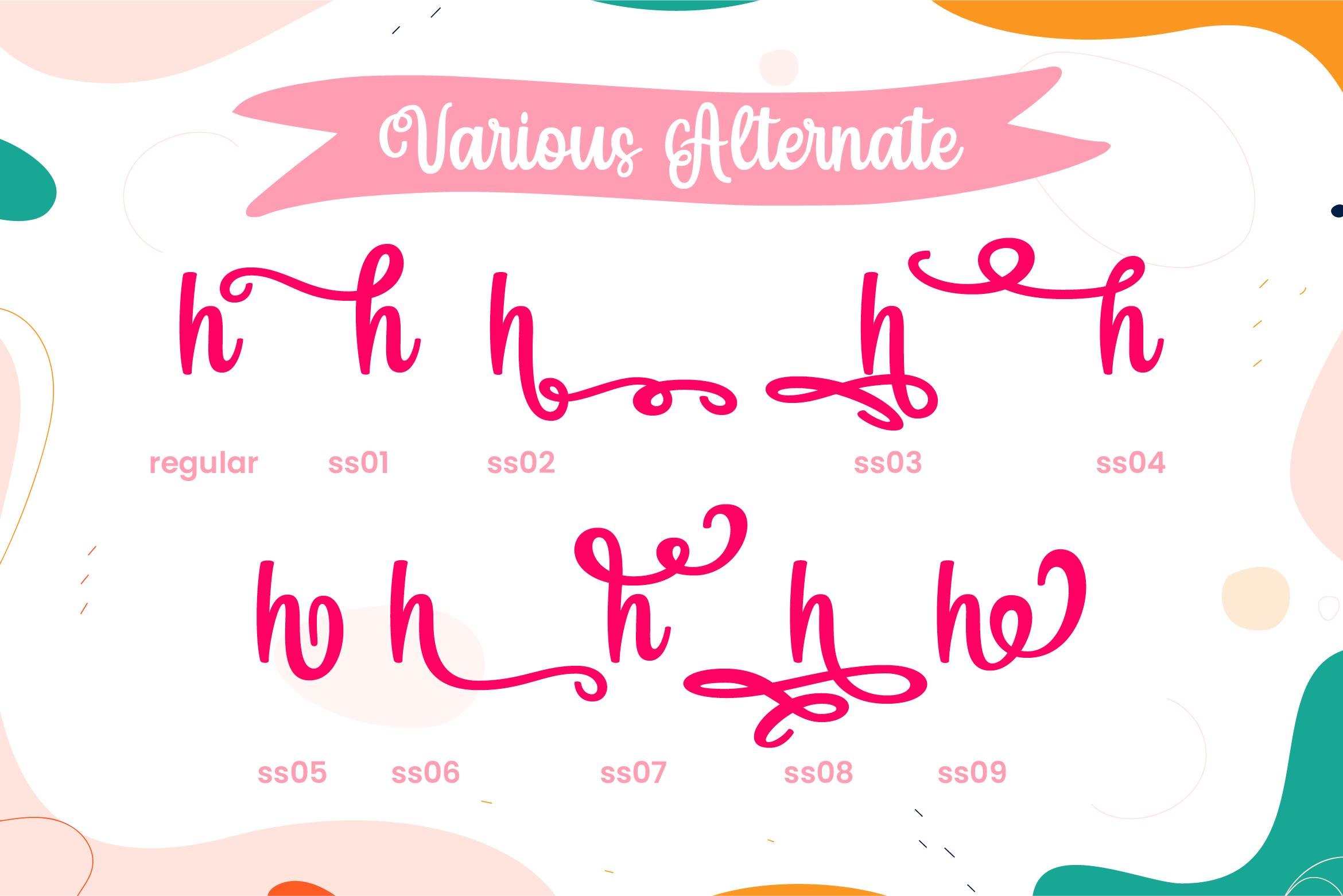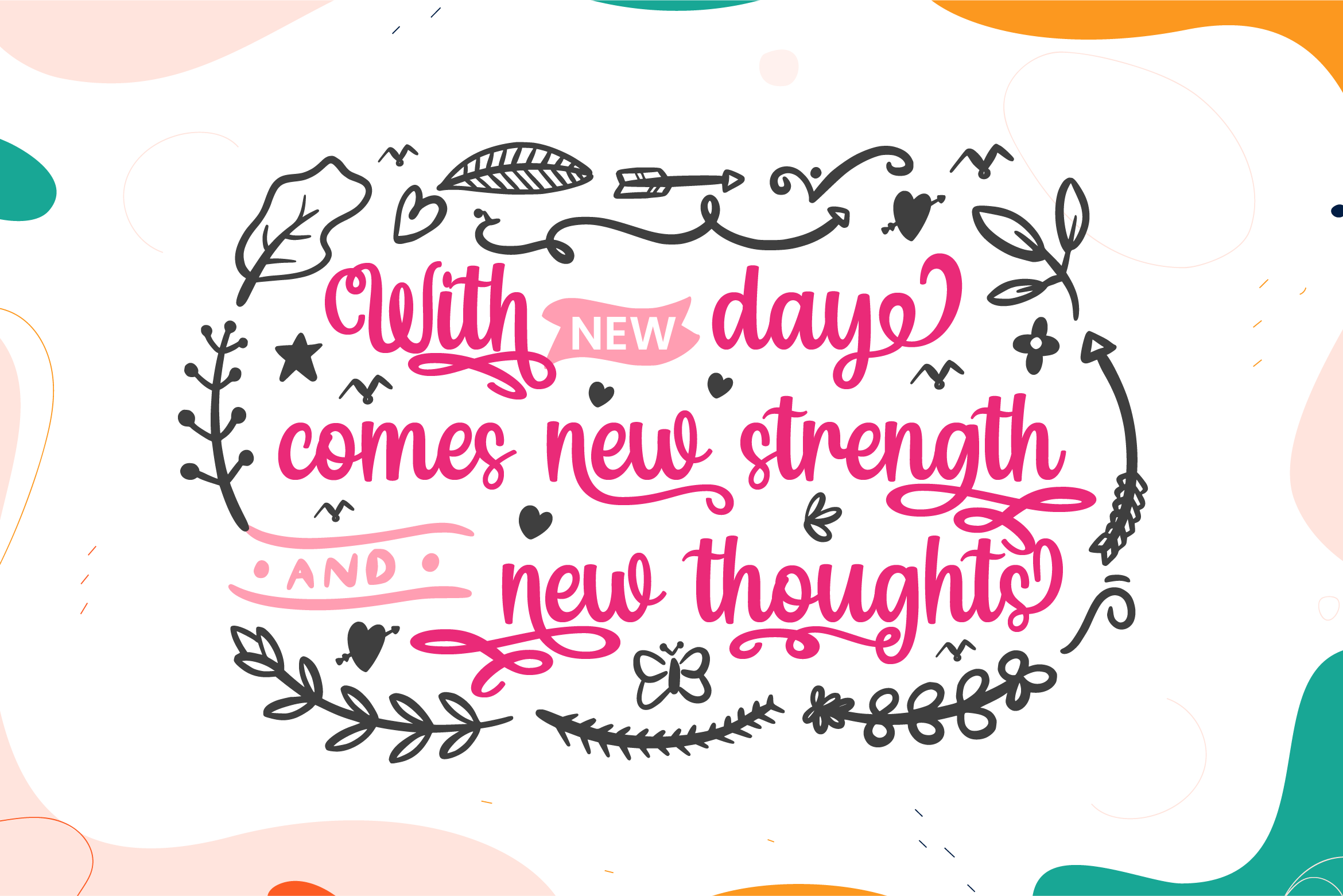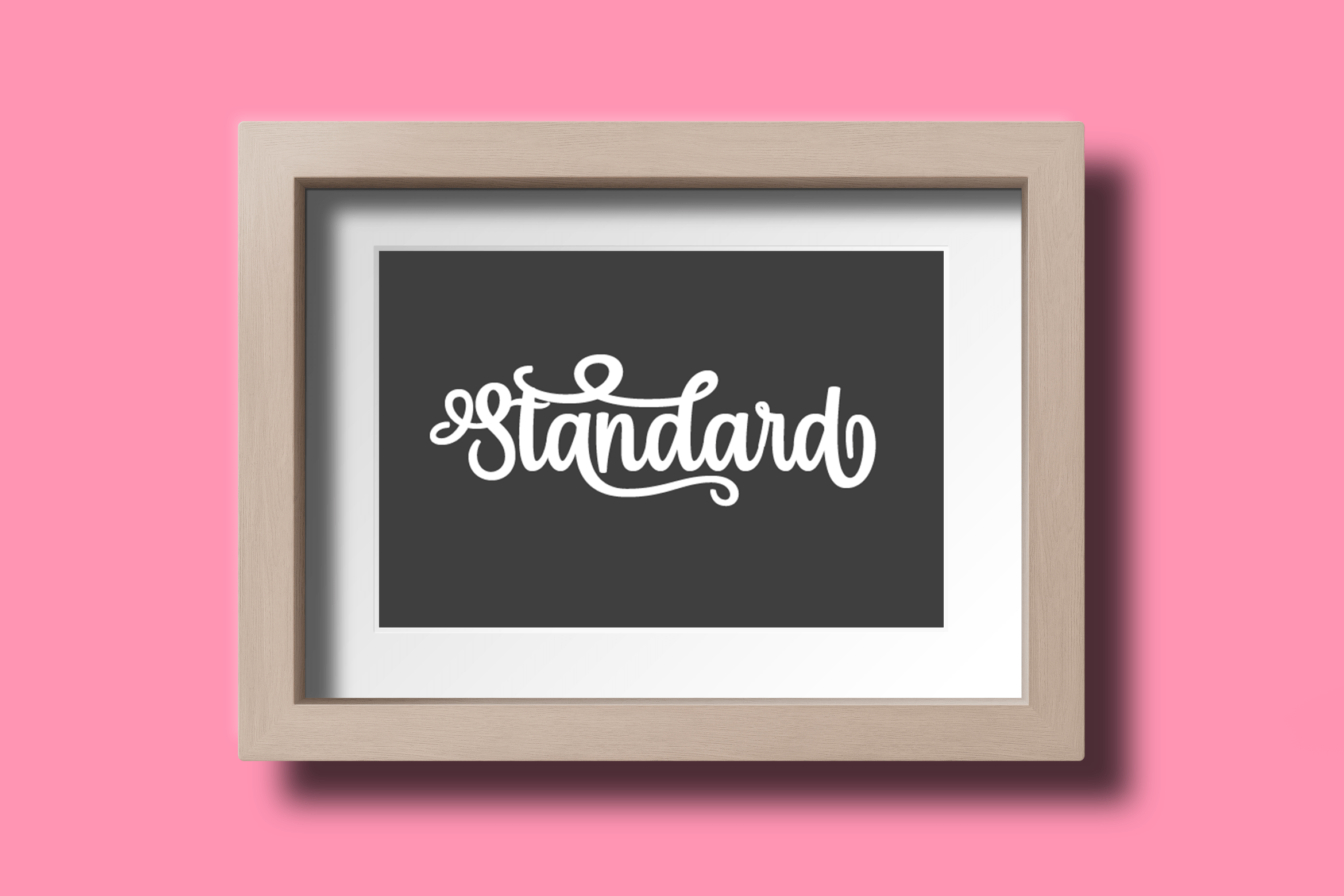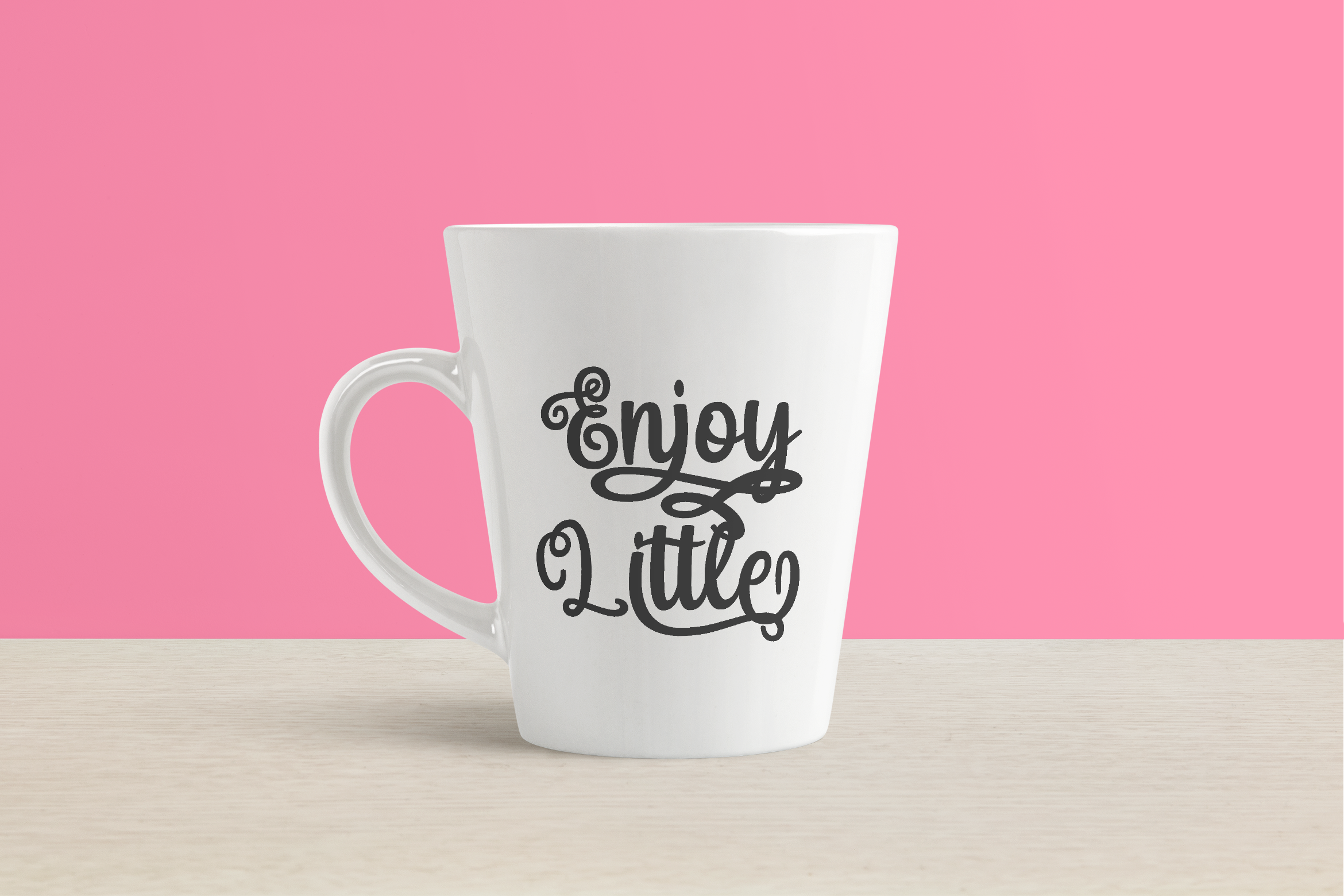
Brodygoal Calligraphy Font is a delicate, elegant and flowing handwritten font. It has beautiful and well balanced characters and as a result, it matches a wide pool of designs. Brodygoal is PUA encoded which means you can access all glyphs and swashes with ease!